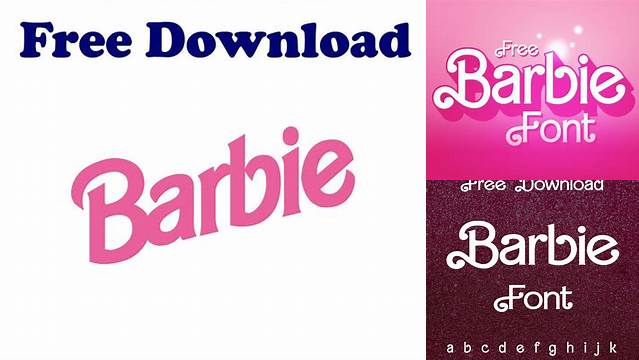
Awesome Barbie Font: Free Download Guide
Hey guys! Are you looking to add a touch of sparkle and nostalgia to your projects? Well, you've come to the right place! Today, we're diving deep into the world of the awesome Barbie font and how you can free download it to use in your designs. This iconic font is perfect for adding a playful and feminine vibe to anything from birthday invitations to social media graphics. So, let’s get started and explore everything you need to know about this amazing typeface!
What Makes the Barbie Font So Awesome?
The Barbie font isn't just any font; it's a symbol of fun, fashion, and a whole lot of girl power! Its bubbly, curvy letters evoke a sense of whimsy and nostalgia, instantly bringing to mind the iconic Barbie logo. But what exactly makes this font so special? Let's break it down:
- Iconic Design: The font's playful curves and rounded edges give it a distinctive look that's instantly recognizable. It's the font equivalent of a warm hug and a wink!
- Versatility: While it's perfect for girly projects, the Barbie font can also be used in a variety of creative ways. Think party invitations, posters, website headers, and even branding materials.
- Nostalgia Factor: For many of us, Barbie is a beloved part of our childhood. Using this font can tap into those nostalgic feelings, making your designs even more impactful.
- Readability: Despite its unique style, the Barbie font is surprisingly easy to read, making it a great choice for both headlines and body text.
H2: Different Variations of the Barbie Font
The world of fonts is vast and varied, and the Barbie font is no exception. While the classic Barbie logo font is iconic, there are several variations and similar fonts that you might want to consider for your projects. Understanding these variations can help you find the perfect fit for your specific needs. Let’s explore some of the most popular ones.
H3: The Classic Barbie Logo Font
When you think of the Barbie font, the classic logo font is probably what comes to mind. This font is characterized by its rounded, bubbly letters and its distinctive, slightly slanted appearance. It's the font used in the official Barbie logo, and it's perfect for capturing that iconic Barbie vibe. This awesome Barbie font is perfect for any project aiming to capture the essence of Barbie. If you're going for authenticity, this is the one to choose. Imagine using it for birthday invitations, party decorations, or even a fun website header. The classic logo font instantly brings a sense of nostalgia and playfulness. Plus, it’s instantly recognizable, making it a surefire way to grab attention. But remember, using this font authentically means ensuring you have the rights, especially for commercial projects. Let’s discuss where you can safely free download this iconic style and similar types.
H3: Similar Fonts with a Barbie Vibe
If you're looking for something similar to the classic Barbie font but with a slight twist, there are plenty of options available. Many fonts capture the same playful, feminine vibe without being an exact replica. These alternatives can be a great choice if you want to add your own unique flair to your designs. Think about fonts with rounded edges, a slightly retro feel, or even those that incorporate a handwritten script style. These can all evoke a similar sense of fun and nostalgia. For instance, fonts like Bubblegum Sans or Lemon Milk offer a similar rounded aesthetic that works well for projects needing a touch of whimsy. These alternatives are also a great way to ensure you’re not infringing on any copyright issues if you’re using the font for commercial purposes. You can often free download these similar styles from various font websites, making them an accessible option for your creative projects. So, exploring these options can really open up your design possibilities.
H3: Script Fonts Inspired by Barbie
Script fonts can also be a great way to capture the essence of Barbie's feminine and stylish persona. Think flowing, cursive letters that evoke a sense of elegance and sophistication. These fonts can be particularly effective for projects that require a touch of glamour. Imagine using a beautiful script font for wedding invitations, thank you cards, or even a stylish logo design. Fonts like Pacifico or Lobster have a similar flowing quality that can add a touch of elegance to your projects. When selecting a script font, make sure it’s still legible, especially for smaller text sizes. The goal is to evoke a sense of sophistication without sacrificing readability. And the best part? You can often find excellent script fonts for free download! Just make sure to check the licensing agreements before using them in commercial projects. Adding a script font to your design arsenal can really elevate your work, giving it a polished and professional look.
H3: Bold and Playful Barbie-esque Fonts
Sometimes, you need a font that's both bold and playful to really make a statement. Fonts in this category often feature thick strokes, rounded edges, and a sense of energy. These are perfect for headlines, posters, and anything that needs to grab attention. A bold, playful Barbie font can bring a lot of personality to your designs, making them stand out from the crowd. Think about using them for children's books, party decorations, or even social media graphics. Fonts like Luckiest Guy or Amatic SC have that bold, playful vibe that can really make your text pop. These fonts are also great for creating a sense of fun and excitement. When using bold fonts, it’s important to balance them with simpler fonts for body text to ensure readability. And yes, you can often free download fonts in this style too! Just keep an eye on the licensing terms to make sure they fit your project’s needs. So, don't be afraid to experiment with bold and playful fonts – they can add a lot of character to your work.
H3: Modern Barbie-Inspired Fonts
For a more contemporary take on the Barbie font, consider exploring modern fonts that incorporate elements of the classic style. These fonts might feature clean lines, geometric shapes, or a more minimalist aesthetic while still retaining that sense of fun and femininity. Modern Barbie-inspired fonts can be a great choice for projects that require a fresh, updated look. Think about using them for website designs, branding materials, or even mobile app interfaces. Fonts like Montserrat or Raleway can provide a clean and modern feel while still maintaining a touch of playfulness. These fonts often have a wide range of weights and styles, giving you plenty of flexibility in your designs. Plus, many modern fonts are available for free download, making them an accessible option for both personal and commercial projects. Embracing a modern style can help your designs feel current and relevant, while still paying homage to the iconic Barbie brand.
H3: Final Thoughts and Resources for Further Learning
We’ve covered a ton of ground in this guide to the awesome Barbie font! From finding free downloads to understanding licensing and creative uses, you’re now well-equipped to incorporate this iconic font into your designs. But the world of typography is vast and fascinating, and there’s always more to learn. So, let’s wrap up with some final thoughts and resources for further learning. First, remember that the key to great typography is to choose fonts that align with your brand’s personality and message. The Barbie font might be perfect for some projects, but not for others. Always consider your target audience and the overall tone you’re trying to create. Second, don’t be afraid to experiment! Try out different fonts and font combinations to see what works best. The more you practice, the better you’ll become at choosing and using fonts effectively. Finally, keep learning! There are countless resources available online and in print to help you expand your typography knowledge. Websites like Typography.com and I Love Typography are excellent resources for articles, tutorials, and font inspiration. Books like “The Elements of Typographic Style” by Robert Bringhurst are considered classics in the field. And don’t forget about online courses and workshops. Platforms like Skillshare and Coursera offer a wide range of typography courses taught by industry experts. The more you learn about typography, the more confident and creative you’ll become in your designs. So, keep exploring, keep experimenting, and keep having fun with fonts!